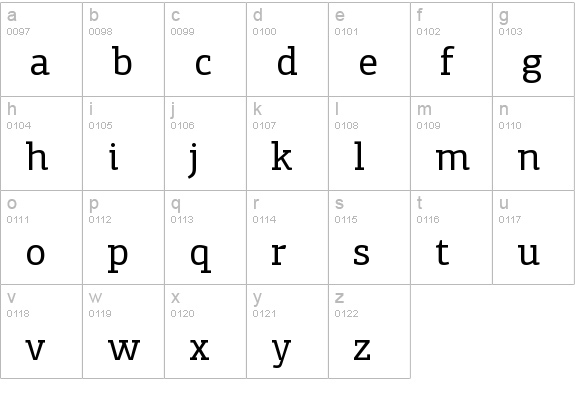
PFAgoraSlabPro-Regular is the standard, neutral variant in the PFAgoraSlabPro typeface family \xE2\x80\x94 well suited to general body text, paragraphs, and standard typographic work.
PFAgoraSlabPro-Regular is a versatile and stylish font that strikes the perfect balance between modernity and elegance. With its clean lines and sturdy serifs, this typeface exudes a sense of professionalism and sophistication, making it ideal for a wide range of design projects. Whether you're working on branding materials, editorial layouts, or web designs, PFAgoraSlabPro-Regular will elevate your work to the next level. What sets PFAgoraSlabPro-Regular apart is not just its impeccable design, but also the fact that it is freely available for download at FontsMarket.com. This means that you can access this high-quality font without any cost, making it a valuable addition to your font library. Don't miss out on the opportunity to enhance your projects with the timeless charm of PFAgoraSlabPro-Regular. Download it today and unleash your creativity with this exceptional typeface.